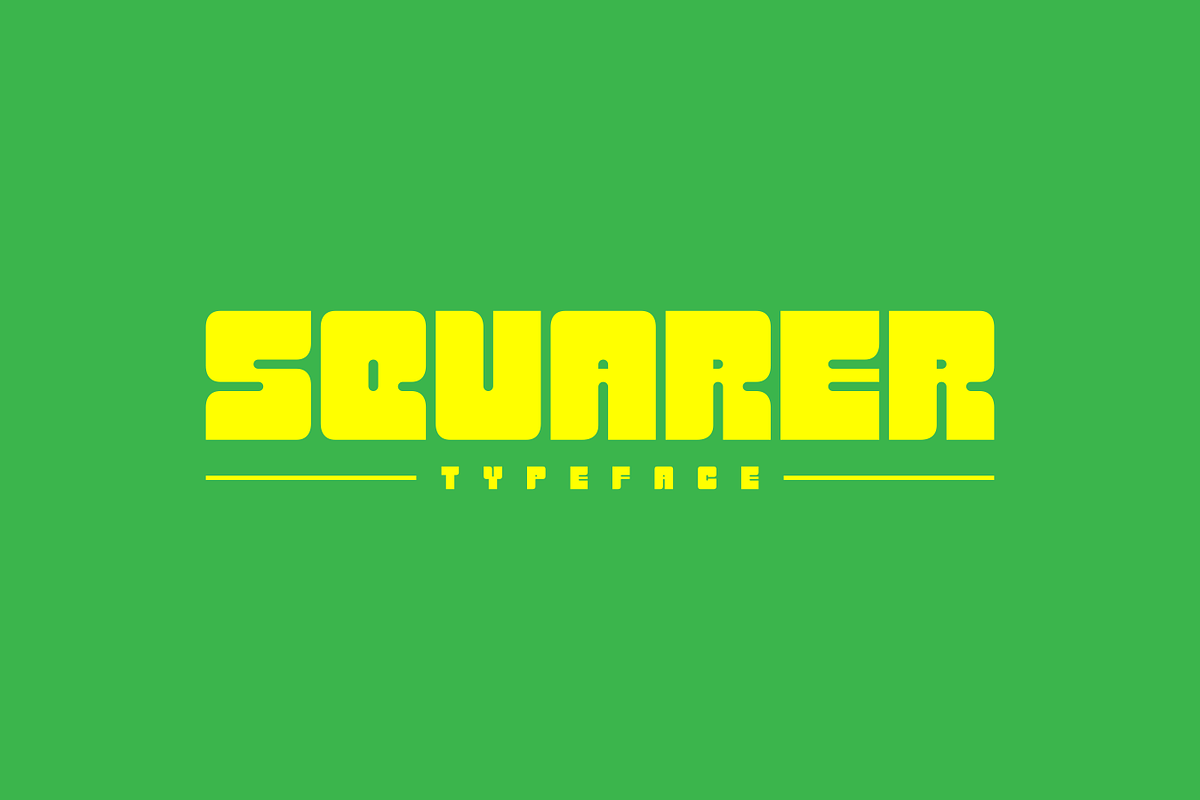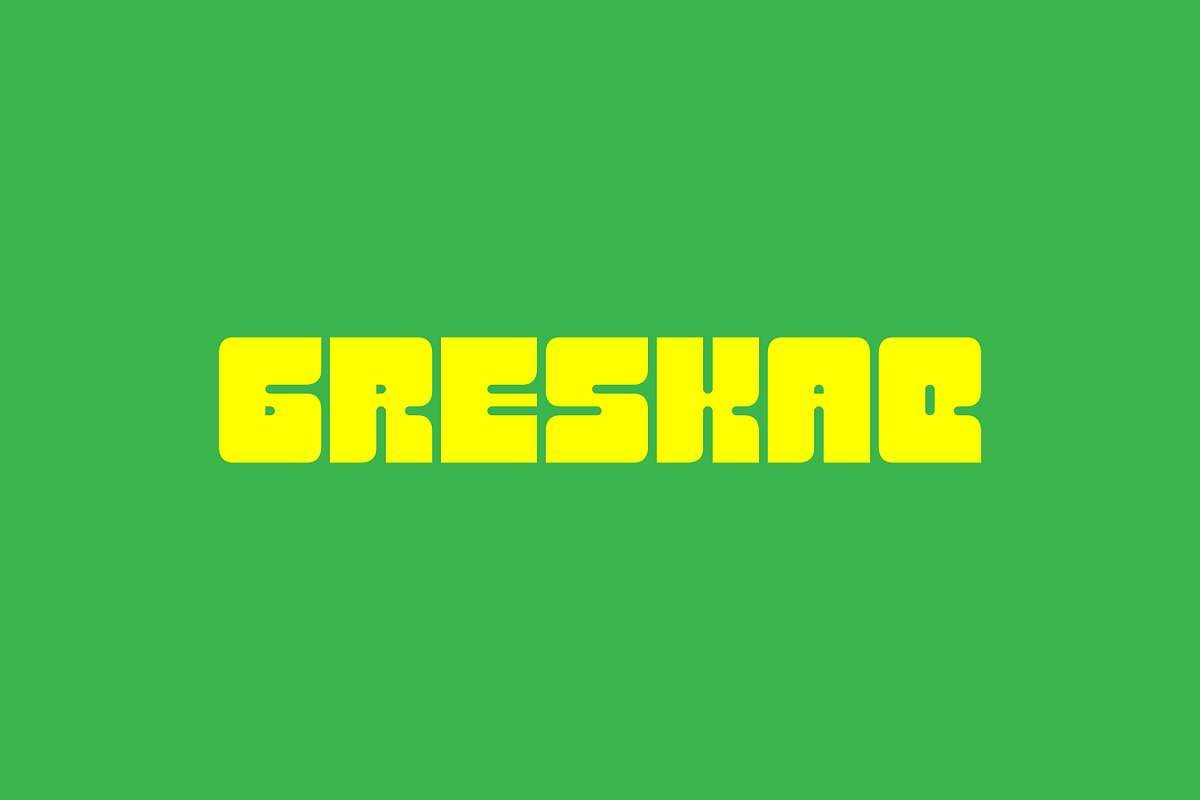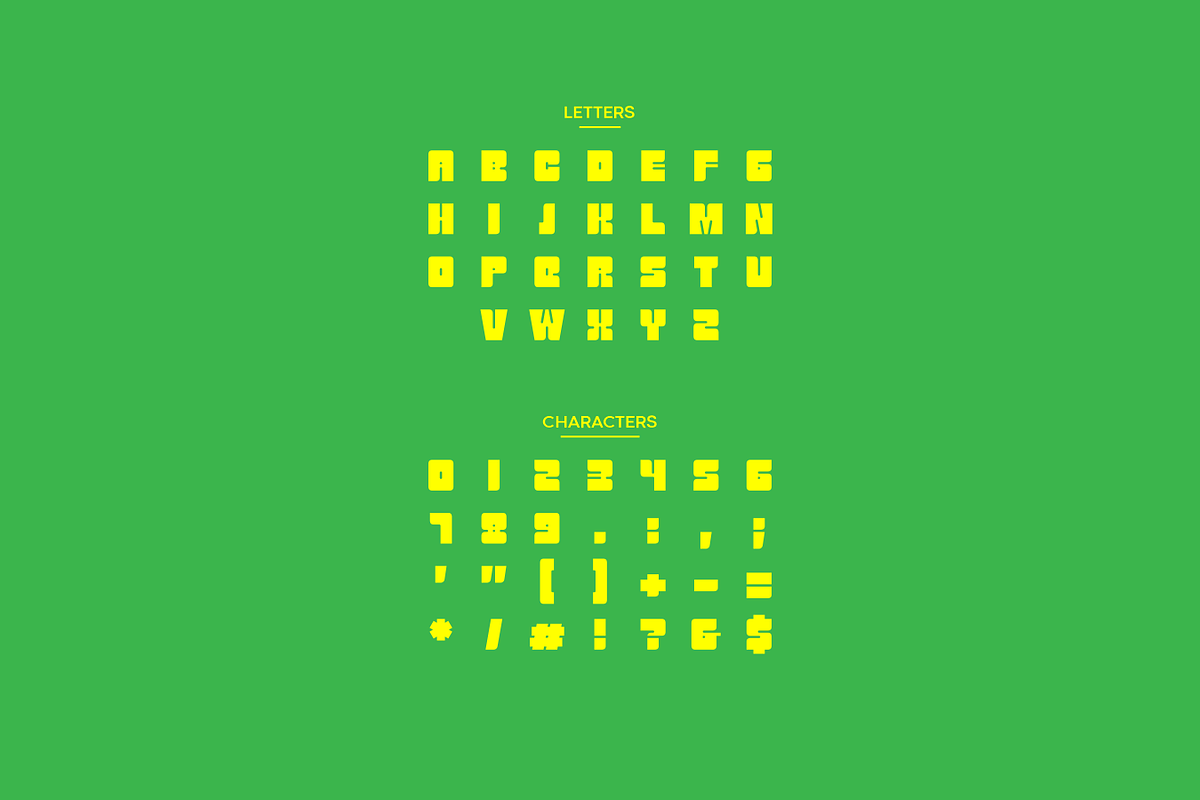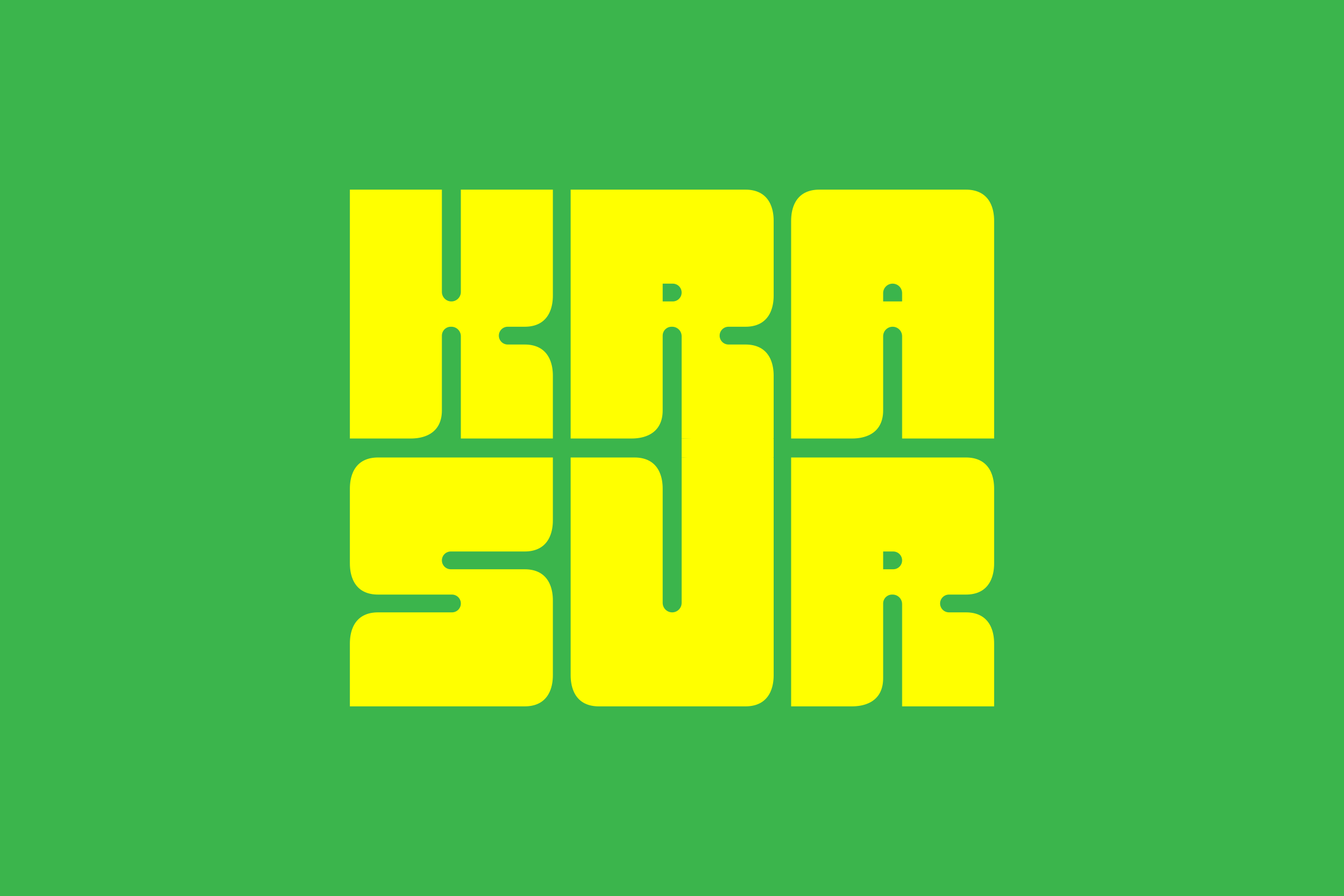
Krasur - Modern Display Typeface
Krasur is a modern sans serif font with a bold and striking appearance. Its substantial weight makes it an excellent choice for titles and packaging, ensuring your text stands out with confidence. The font features slightly rounded edges, adding a subtle softness to its otherwise strong and assertive design. Perfect for making a statement, Krasur combines retro charm with modern readability.